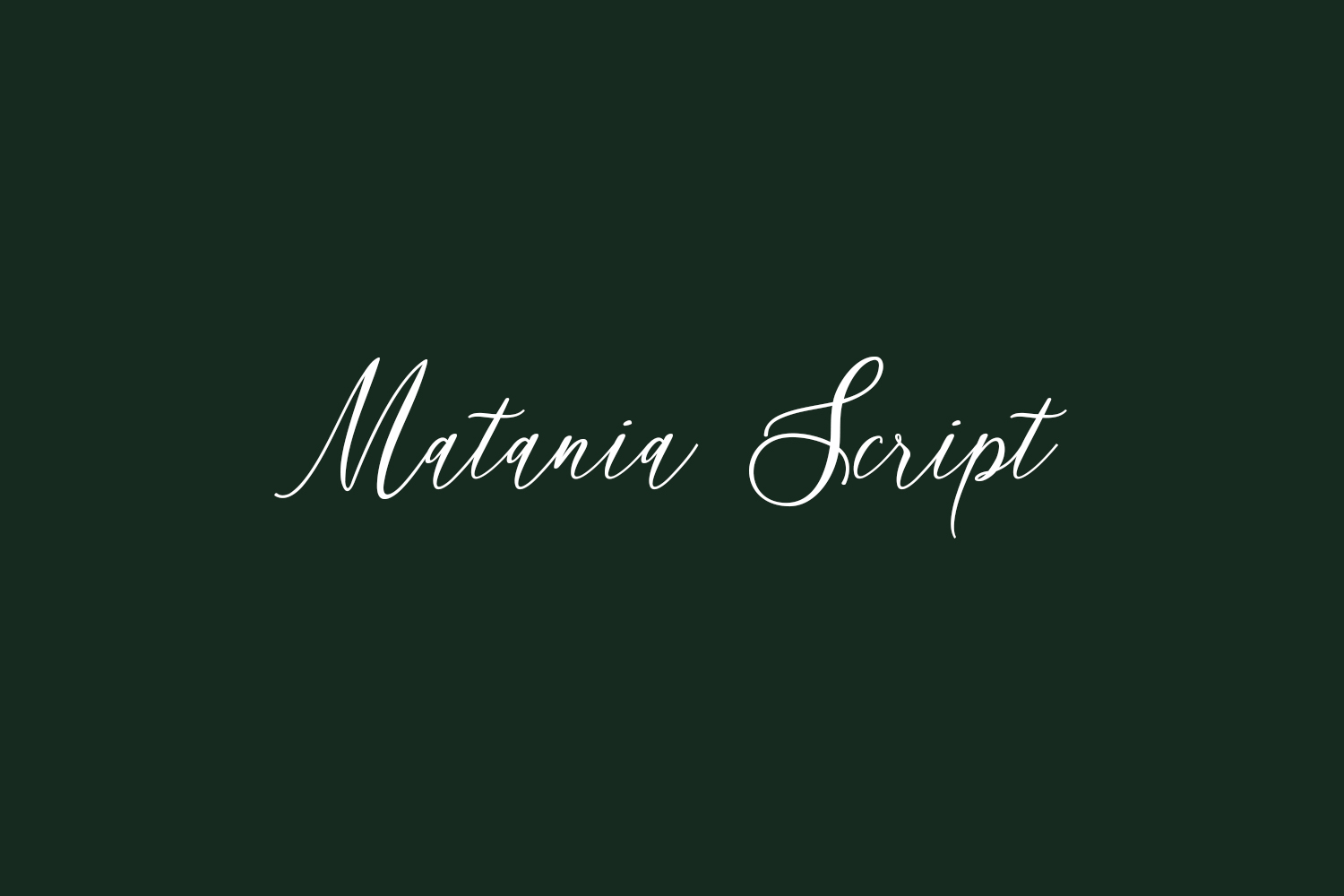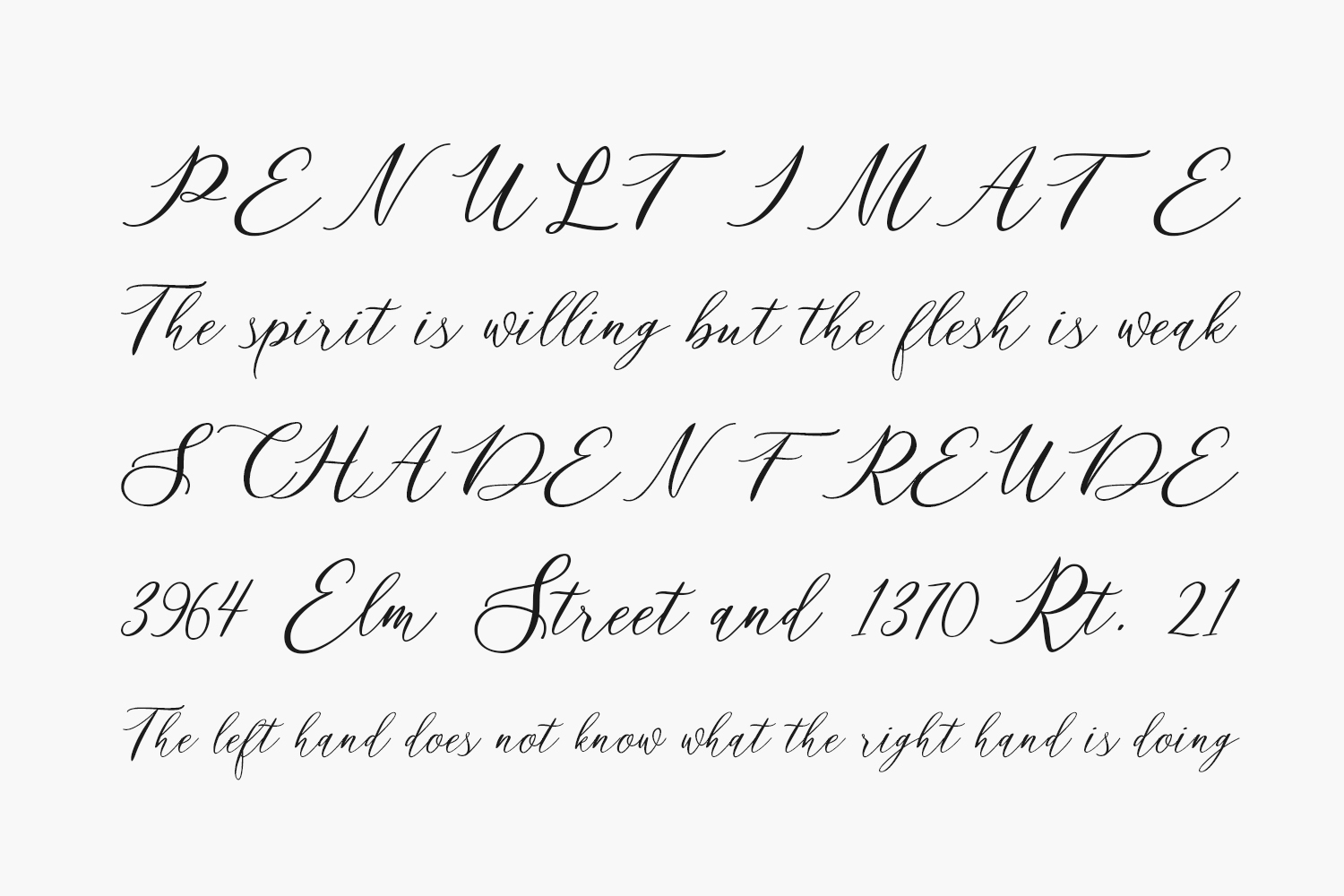
Matania Script Font Free Font is a new, fresh & modern script with a handmade calligraphy style. it has decorative characters and a dancing baseline. Matania Script Font Free Font was designed by Zulkhairilettering and is free for personal use only. Please purchase the full version for commercial use.